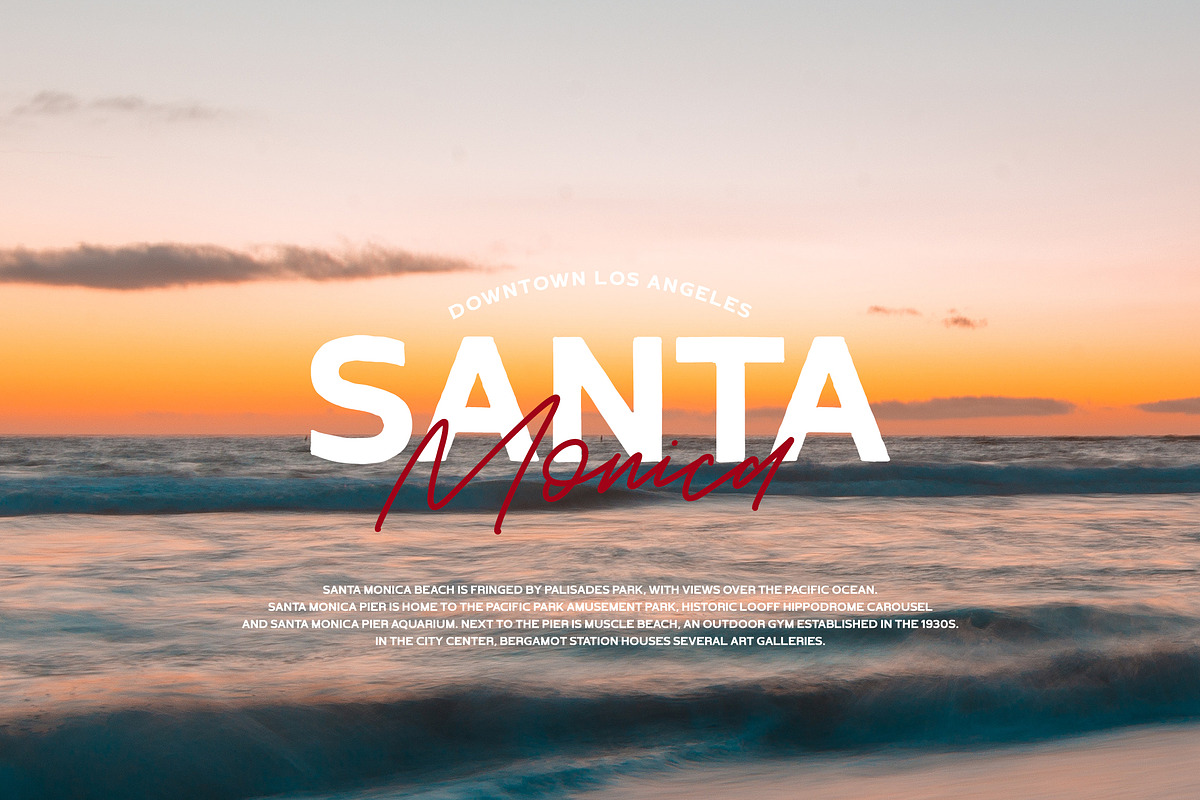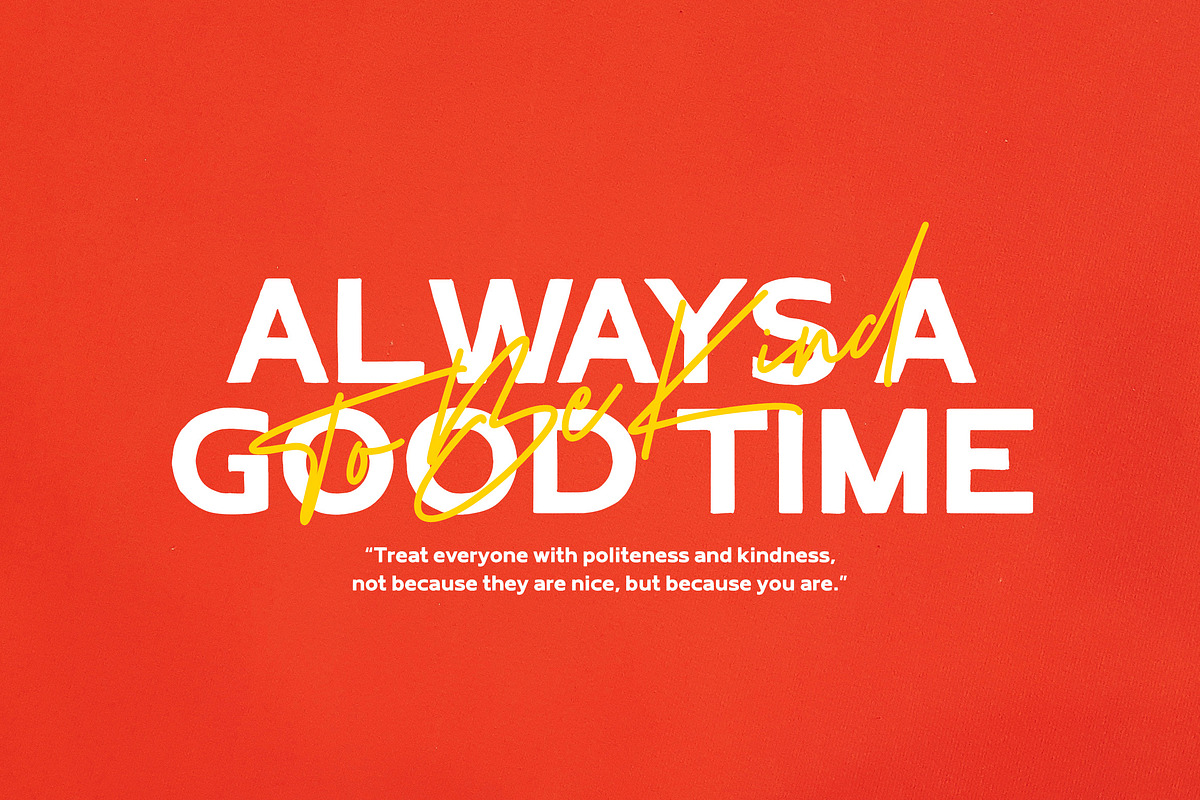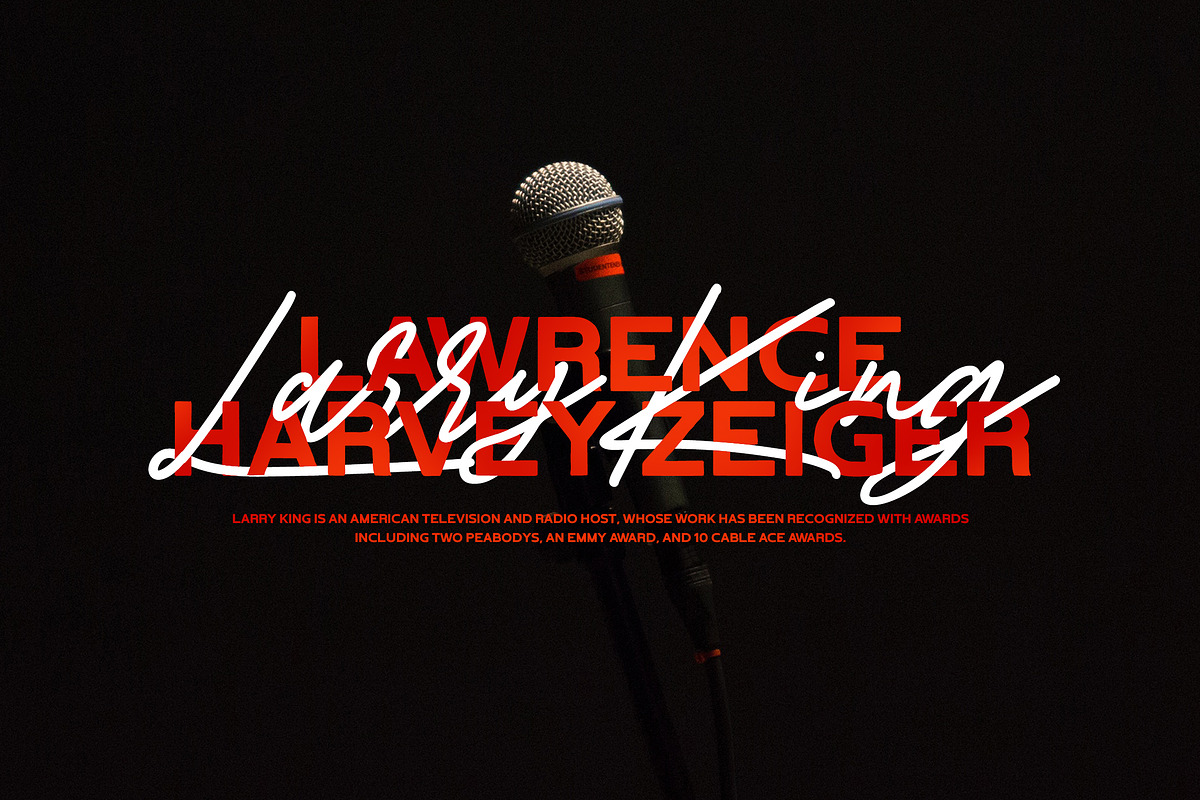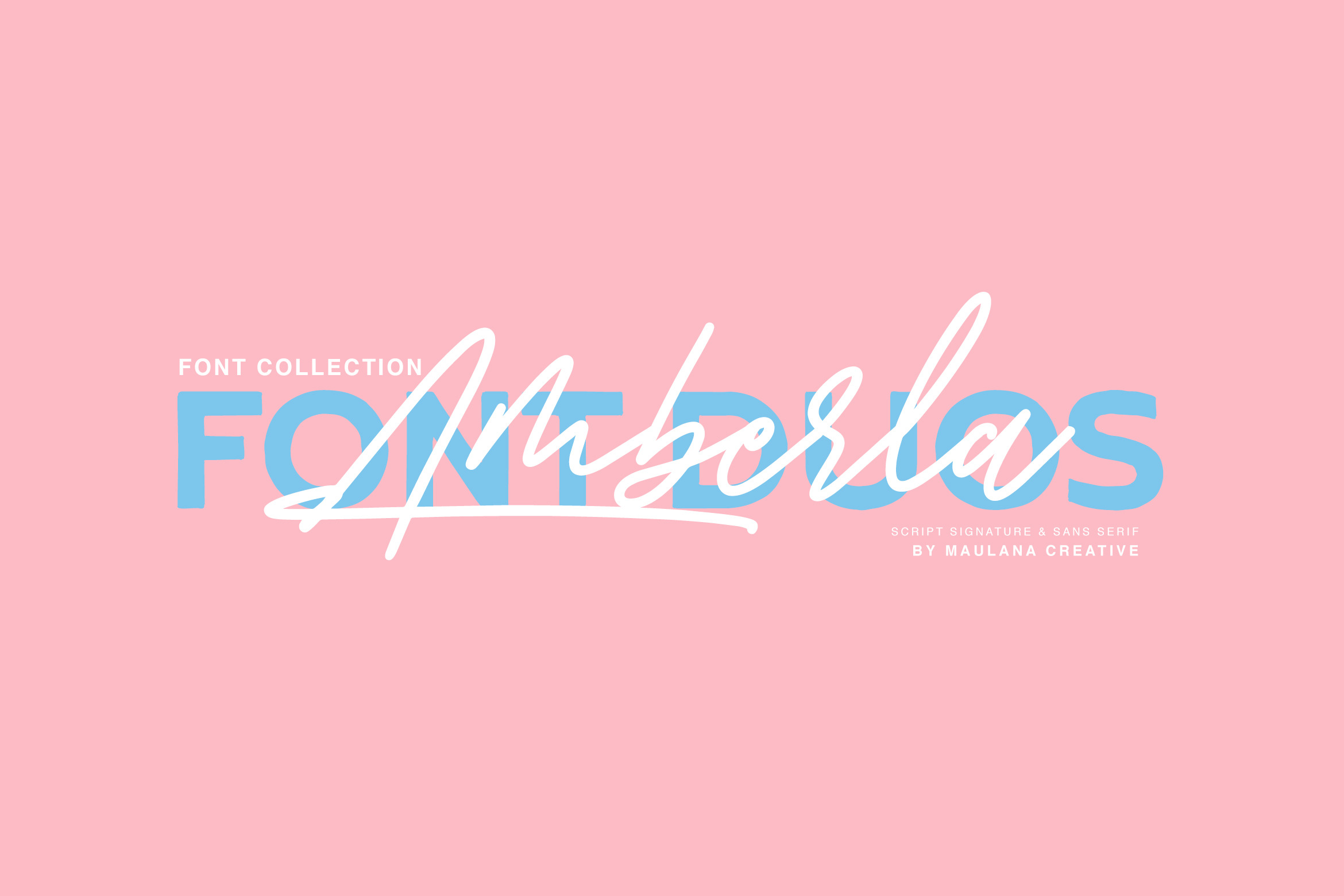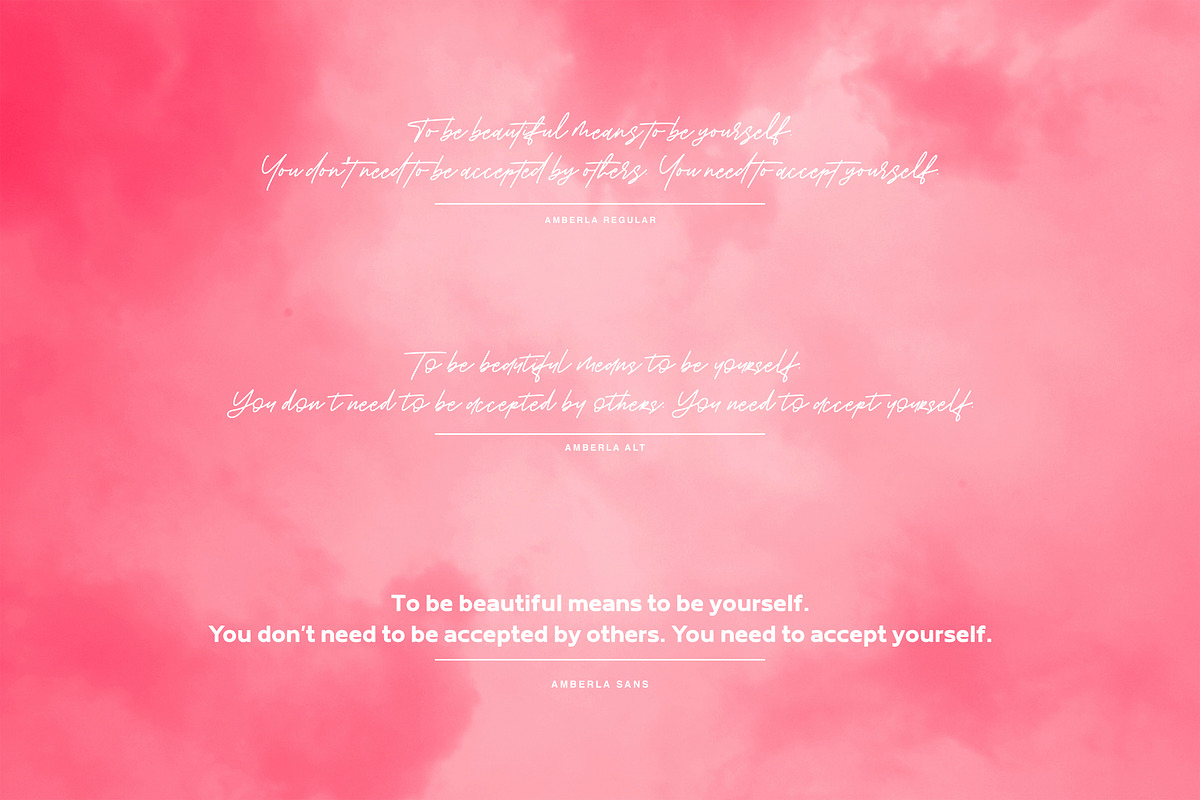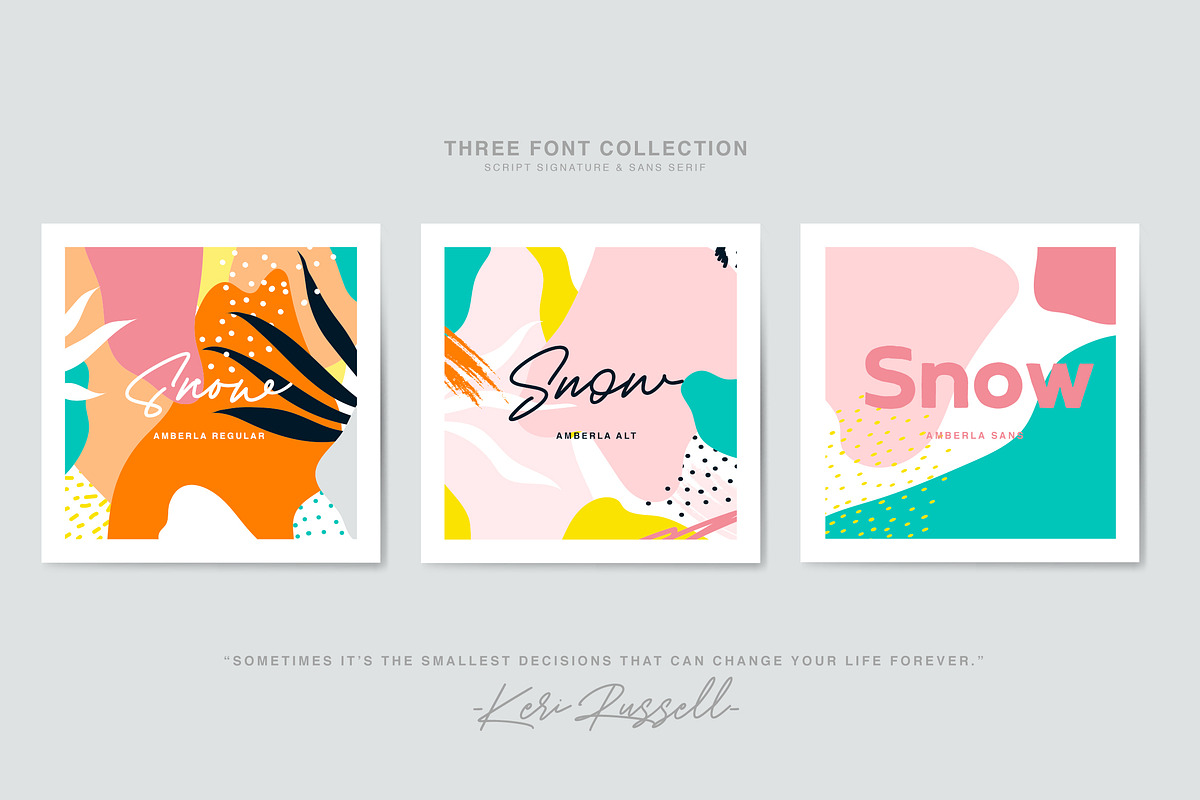
Amberla Script Sans Font
Give your designs an authentic brush handcrafted feel. “Amberla” is perfectly suited to signature, stationery, logo, typography quotes, magazine or book cover, website header, flyer, clothing, branding, packaging design and more.